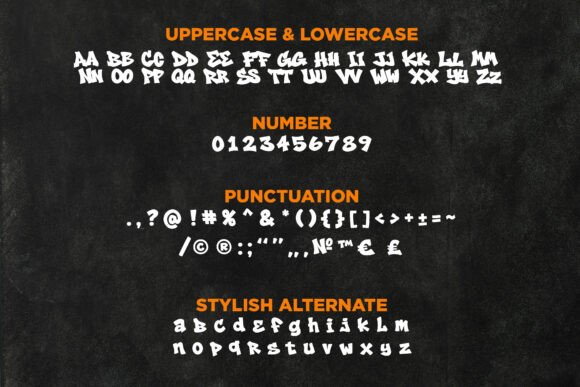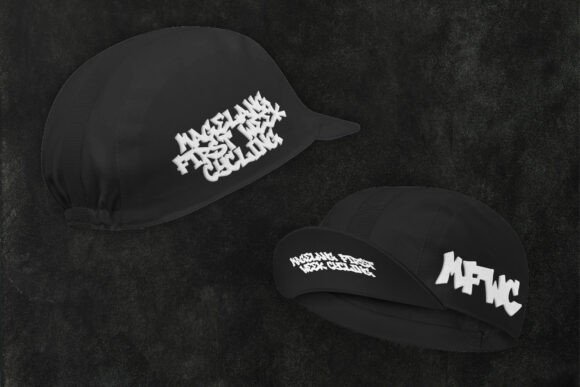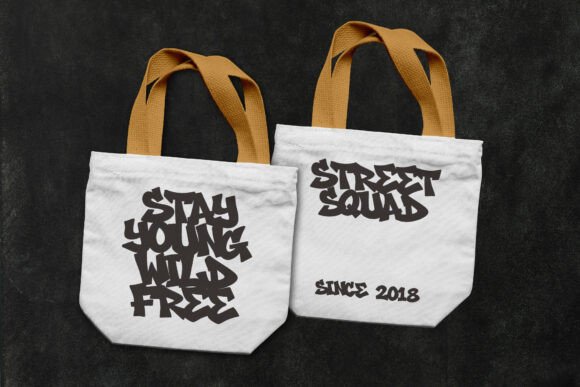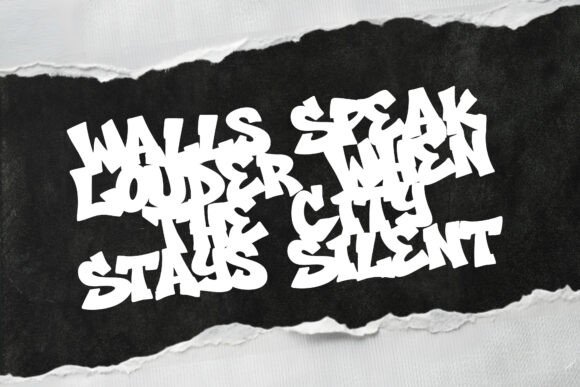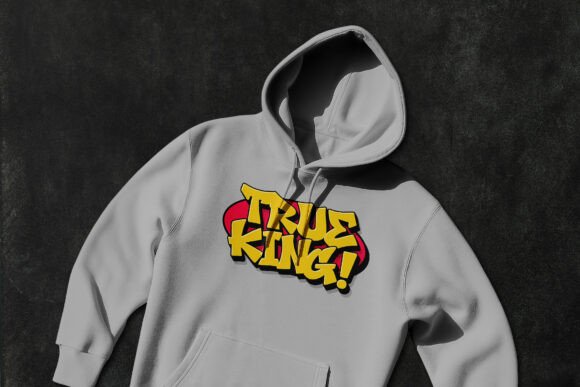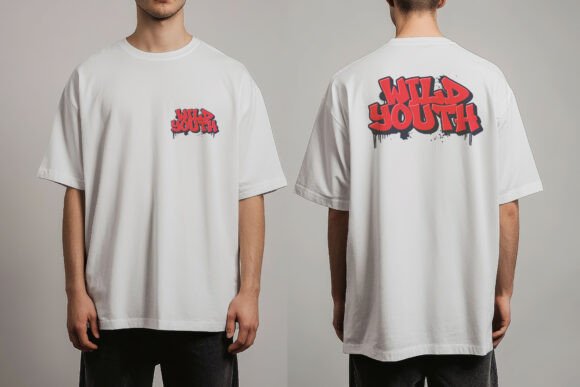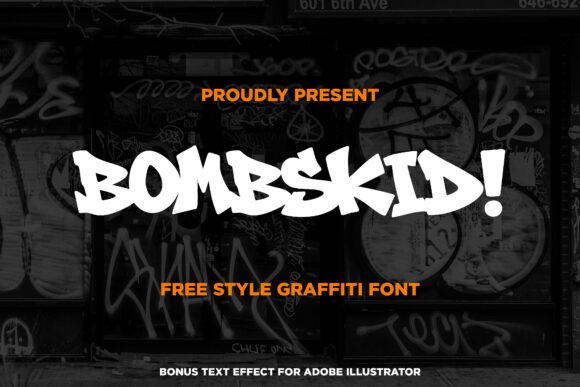
Bombskid Font: Unleash Your Creativity with this Bold Freestyle Graffiti Font
Are you a designer, artist, or crafty individual looking for a font that embodies the raw energy of street art and urban culture? Look no further than Bombskid, a bold freestyle graffiti font that is sure to take your designs to the next level. Inspired by authentic street tags, urban aesthetics, and underground hip-hop, Bombskid is the perfect choice for creating eye-catching visuals that demand attention.
The Inspiration Behind Bombskid
Bombskid is more than just a font – it’s a movement. Born out of the streets, this font is a reflection of the vibrant culture and creative energy that thrives in urban environments. With its chunky letterforms, dynamic curves, and expressive handstyle energy, Bombskid captures the essence of street art and brings it to your designs. Whether you’re a fan of hip-hop, skate culture, or streetwear, Bombskid is the perfect way to add a touch of authenticity to your work.
Key Features of Bombskid
So, what makes Bombskid so special? Here are just a few of its key features:
• Uppercase and Lowercase Letters: Bombskid features a full range of uppercase and lowercase letters, making it perfect for creating bold statements and eye-catching headlines.
• Numbers and Punctuation: With a complete set of numbers and punctuation marks, Bombskid has everything you need to create complex designs and layouts.
• Stylish Alternates: Add some extra flair to your designs with Bombskid’s stylish alternates, carefully crafted to give your text a unique and dynamic look.
Bombskid is an incredibly versatile font, making it perfect for a wide range of design projects. Here are just a few ideas to get you started:
• Posters and Flyers: Create bold, eye-catching posters and flyers that demand attention with Bombskid’s chunky letterforms and dynamic curves.
• Album Covers and Music Artwork: Give your music artwork a raw, street-art vibe with Bombskid’s bold and expressive font.
• Streetwear Branding and Logos: Create authentic, street-inspired branding and logos that resonate with your audience.
• Skate Graphics and Stickers: Add a touch of urban flair to your skate graphics and stickers with Bombskid’s bold and energetic font.
• YouTube Thumbnails and Gaming Designs: Stand out in a crowded online space with Bombskid’s attention-grabbing font, perfect for YouTube thumbnails and gaming designs.
• Murals and Urban Merchandise: Bring the streets to your designs with Bombskid’s authentic, graffiti-inspired font, perfect for murals and urban merchandise.
Why Choose Bombskid?
So, why choose Bombskid over other fonts? Here are just a few reasons:
• Authentic Street Art Vibe: Bombskid is inspired by authentic street art and urban culture, giving your designs a raw, rebellious energy.
• Highly Versatile: With its wide range of features and applications, Bombskid is the perfect font for a variety of design projects.
In conclusion, Bombskid is a bold, expressive font that is sure to bring a touch of street art flair to your designs. With its authentic urban vibe, highly versatile features, and ease of use, Bombskid is the perfect choice for designers, artists, and crafty individuals looking to create eye-catching visuals that demand attention. So why wait? Download Bombskid today and unleash your creativity!